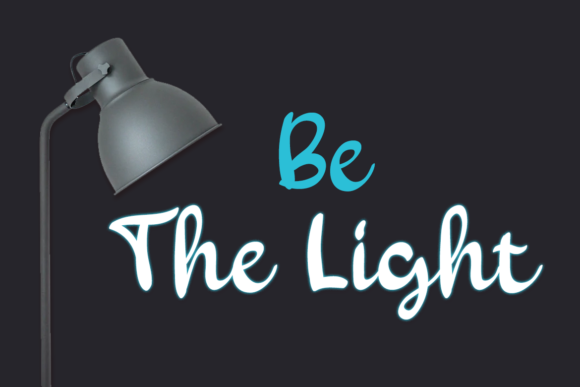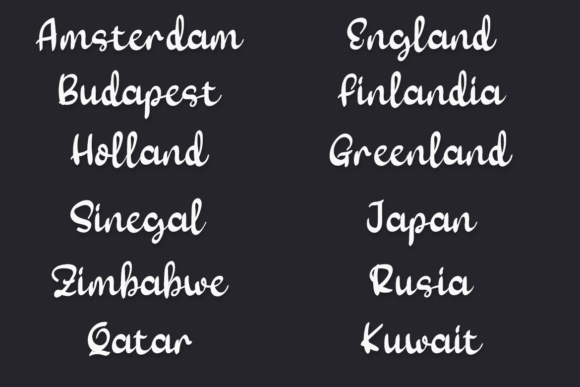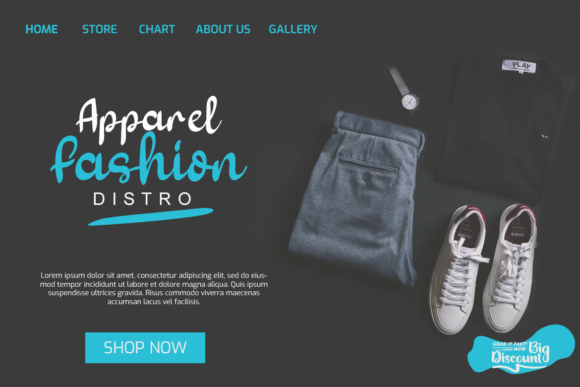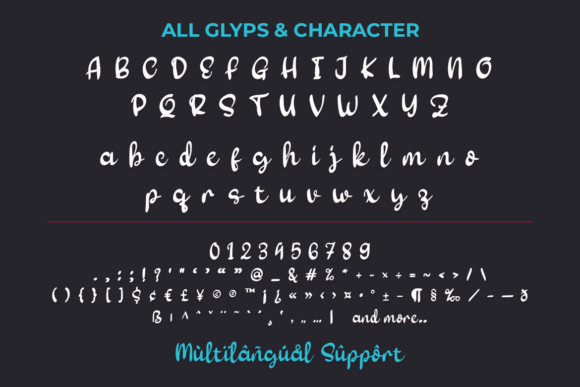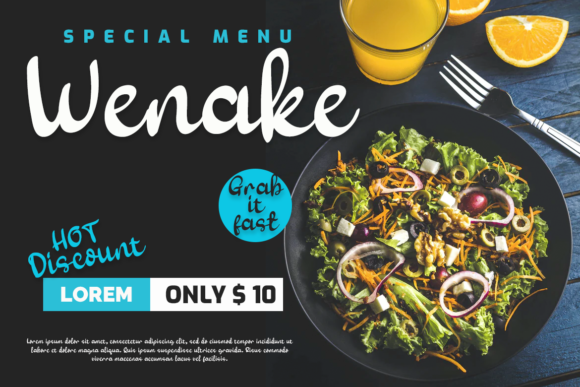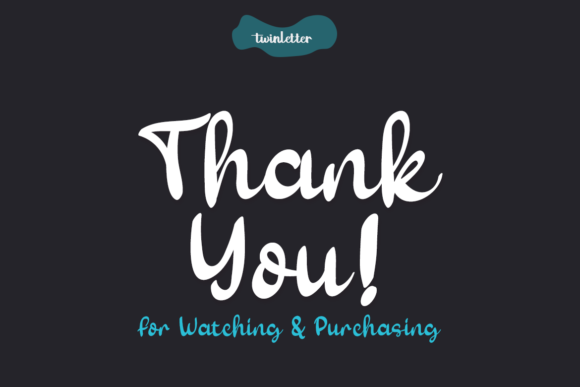
About Renanty Font
Renanty is a beautiful and flowing handwritten font. It’s inspired by classic typography and brings its own unique style to any design project. Whether you’re looking for fonts for Instagram or calligraphy scripts for DIY projects, Renanty
will turn any creative idea into a true piece of art!